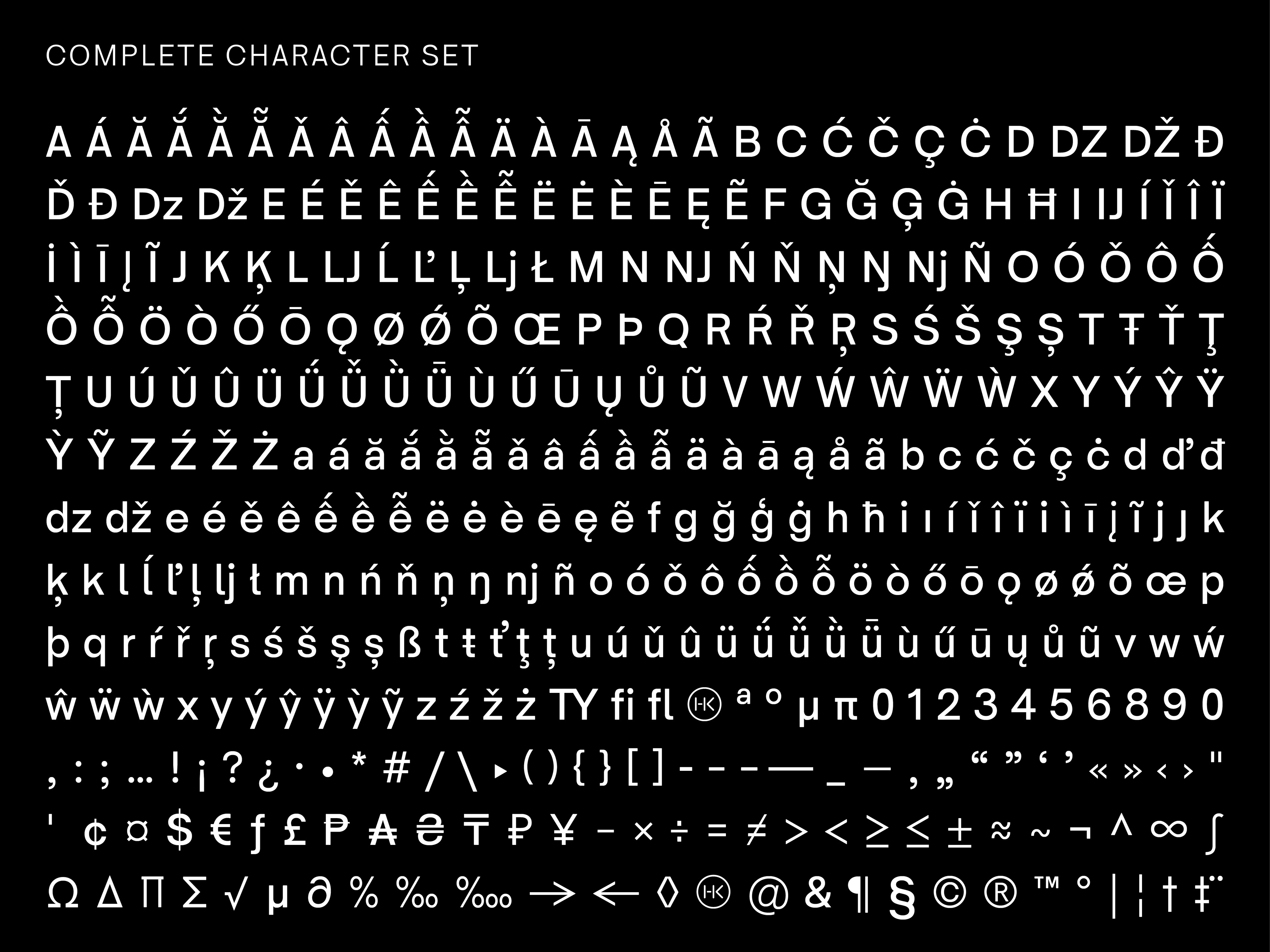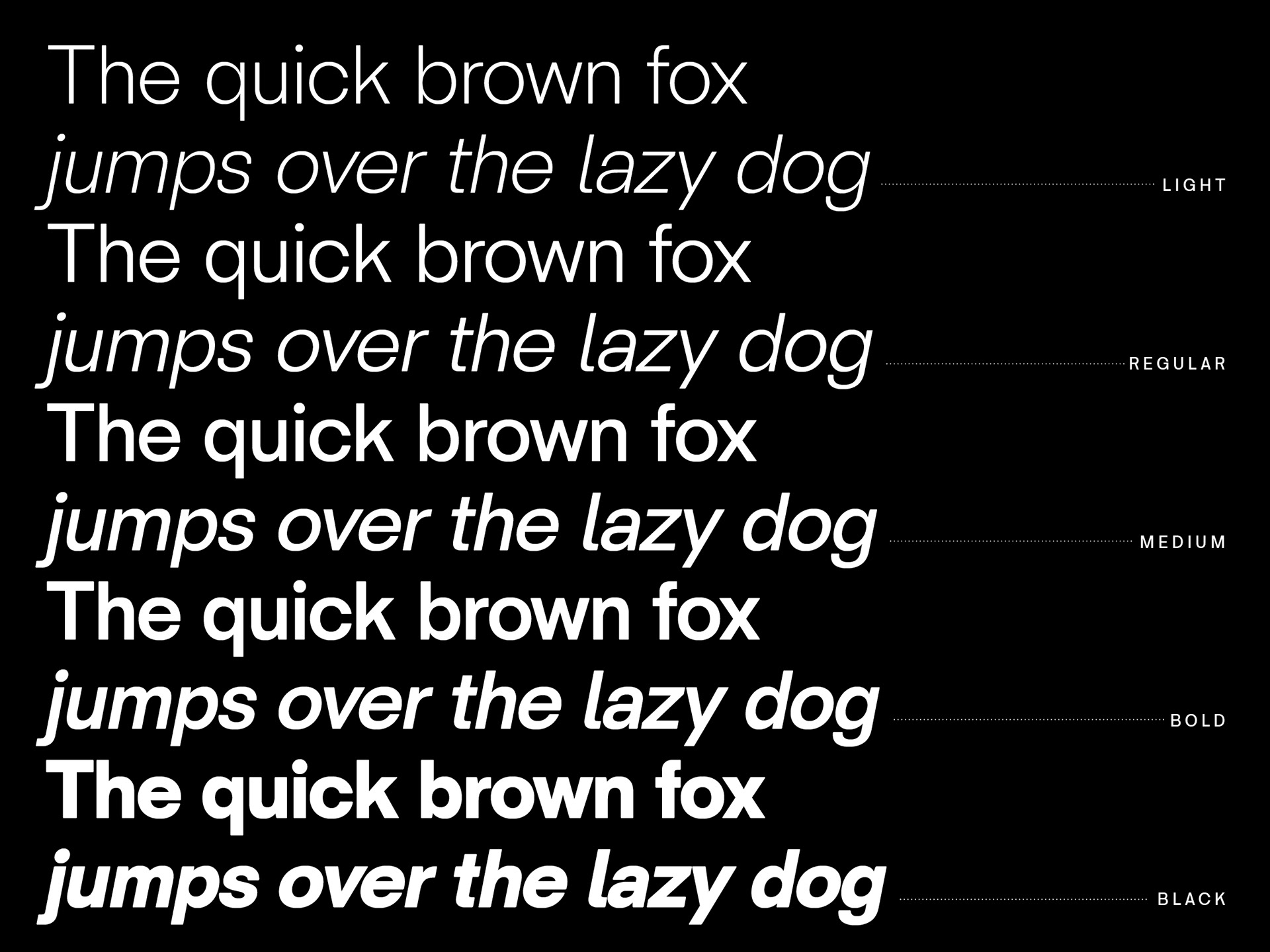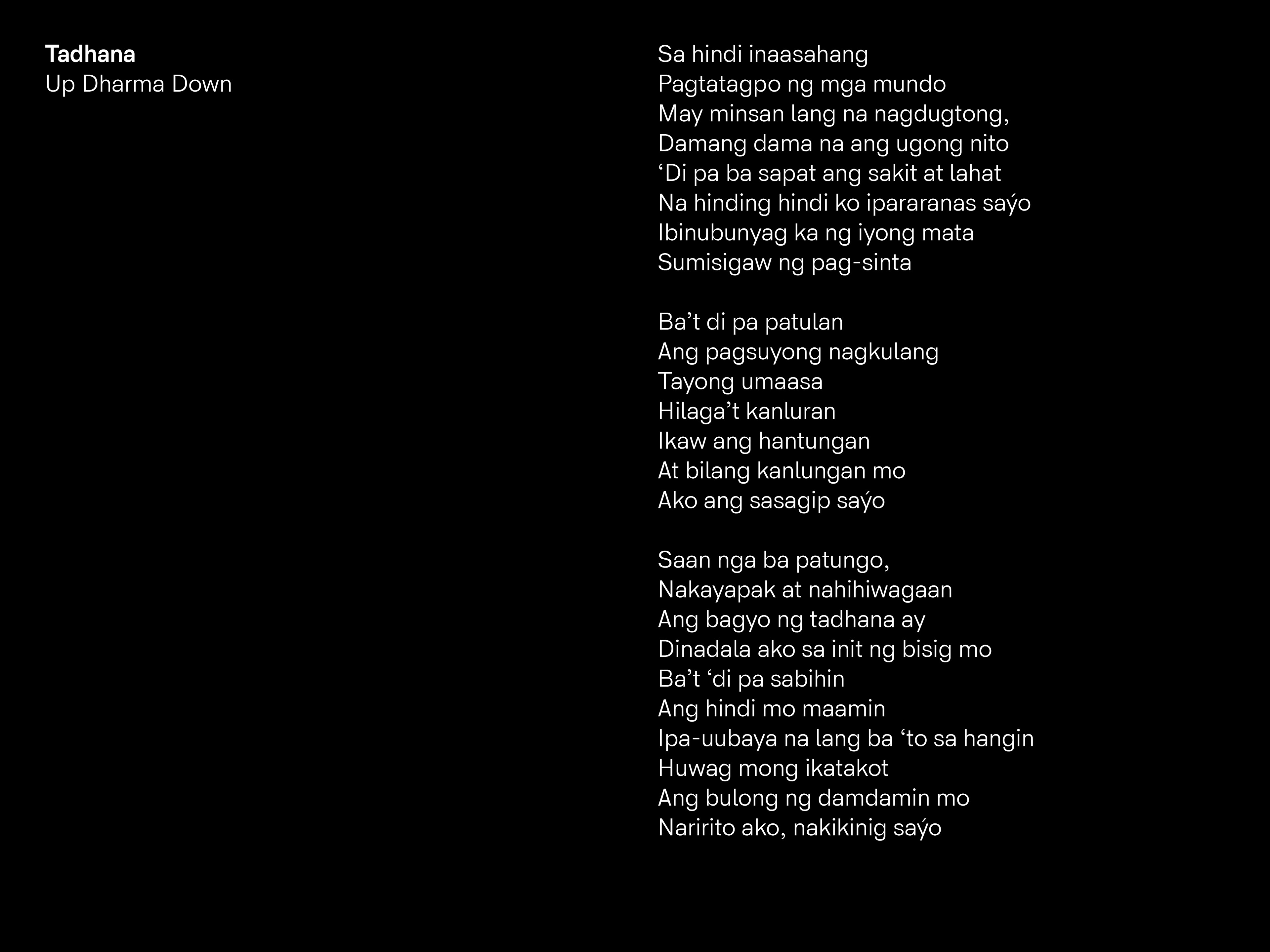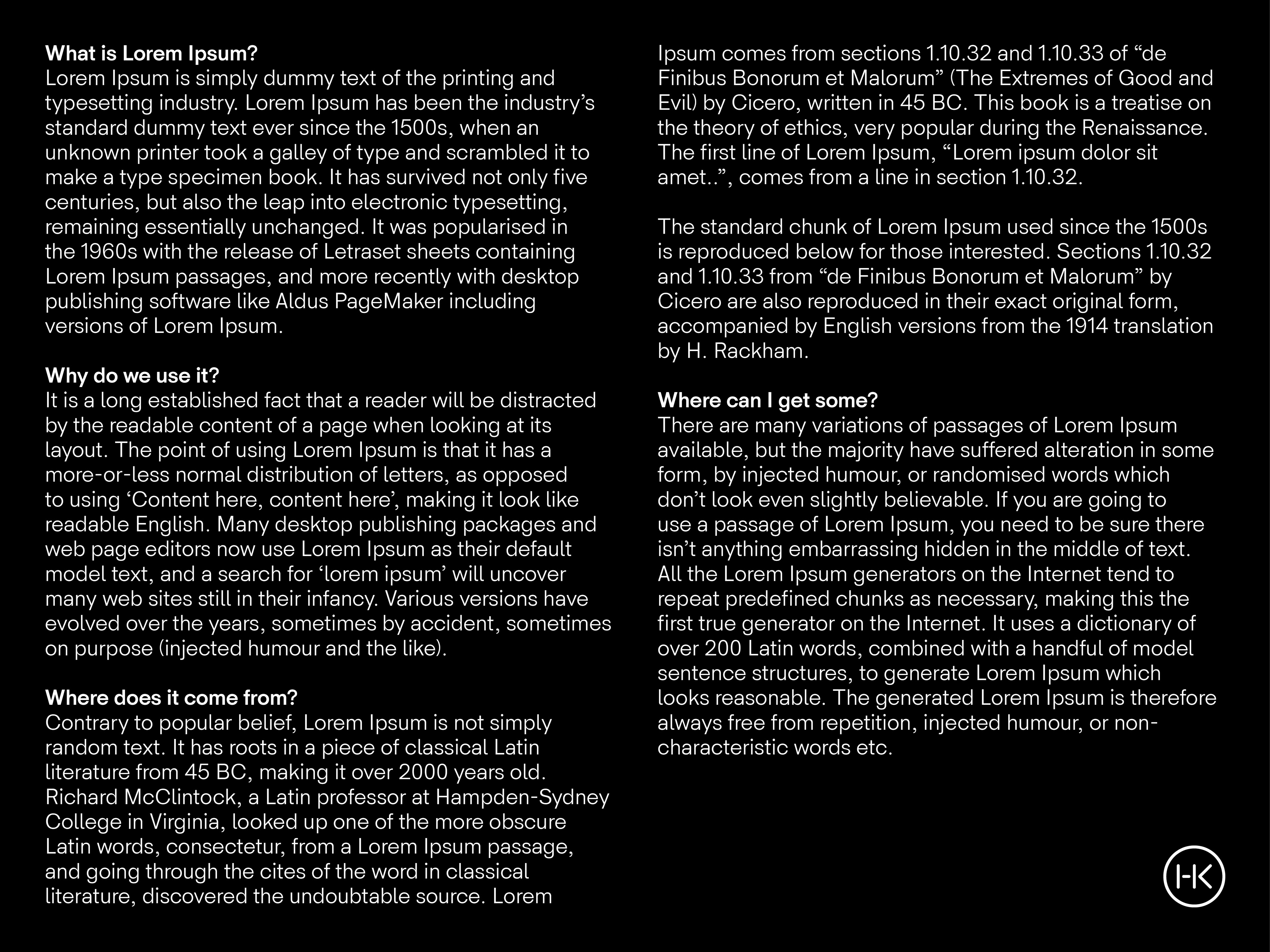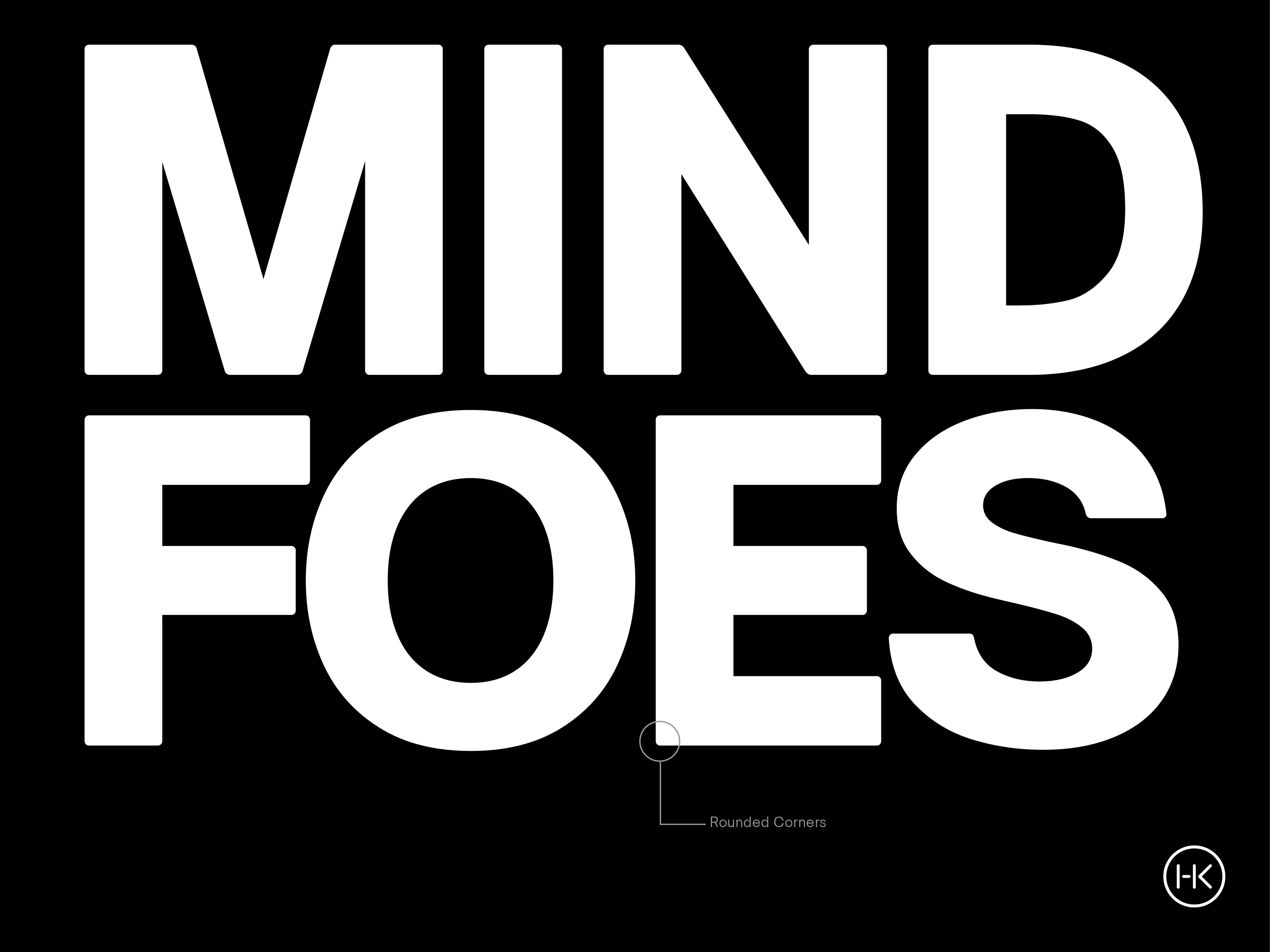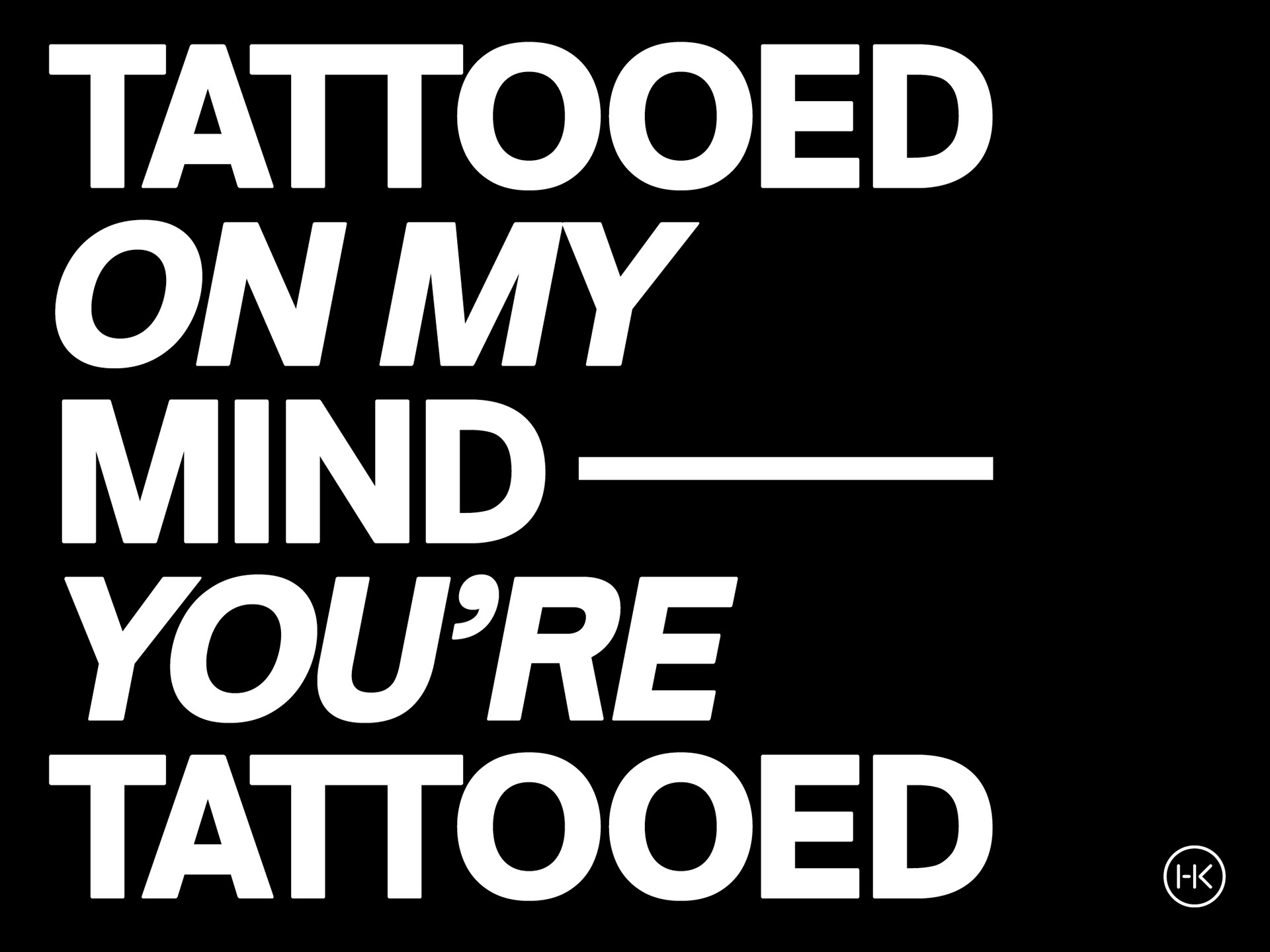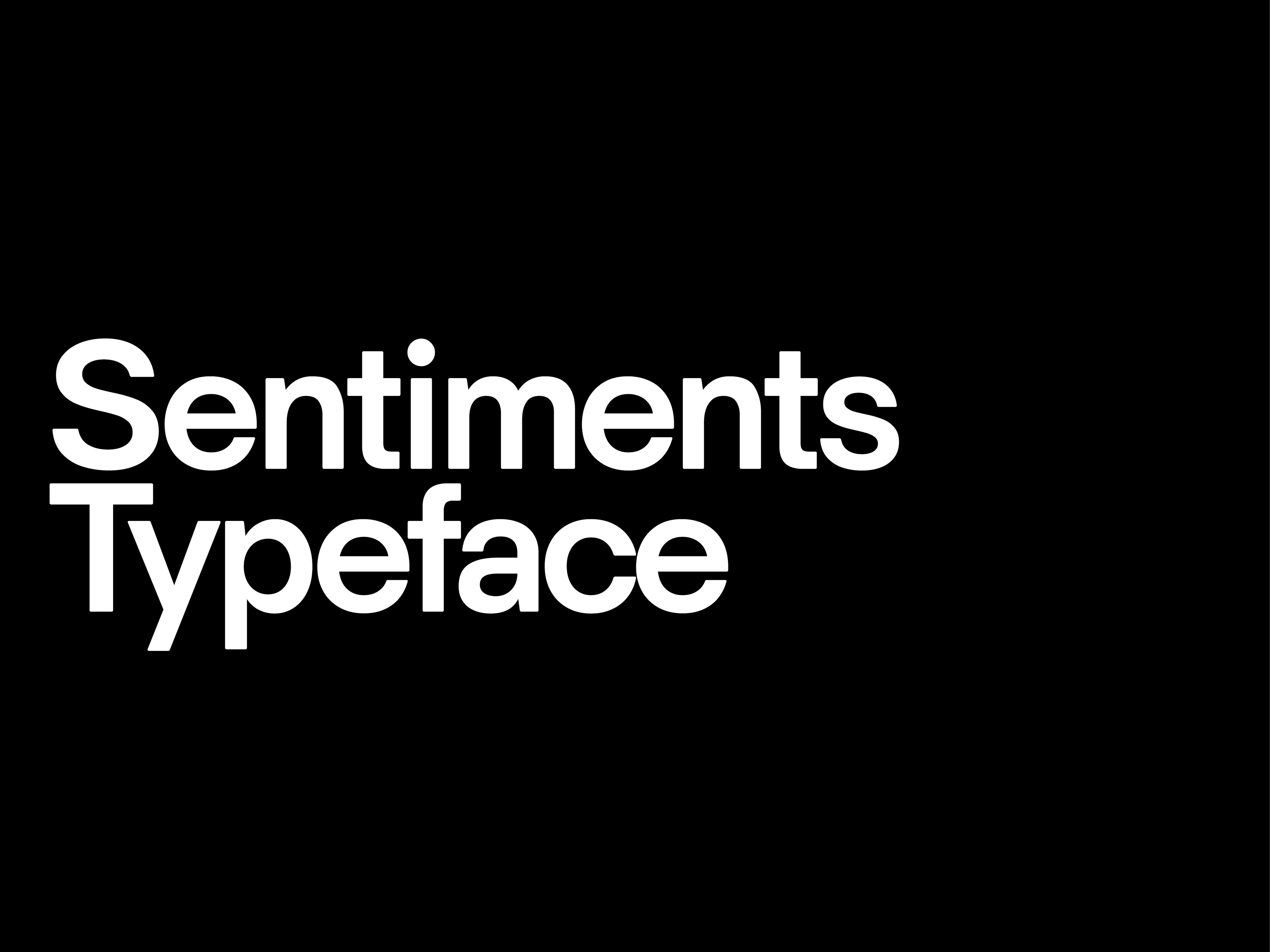
HK Sentiments is a neutral typeface designed for tight compositions and layouts. The solid block shape silhouettes of the letterforms make it a great substitute to the classic modern sans-serif typefaces.